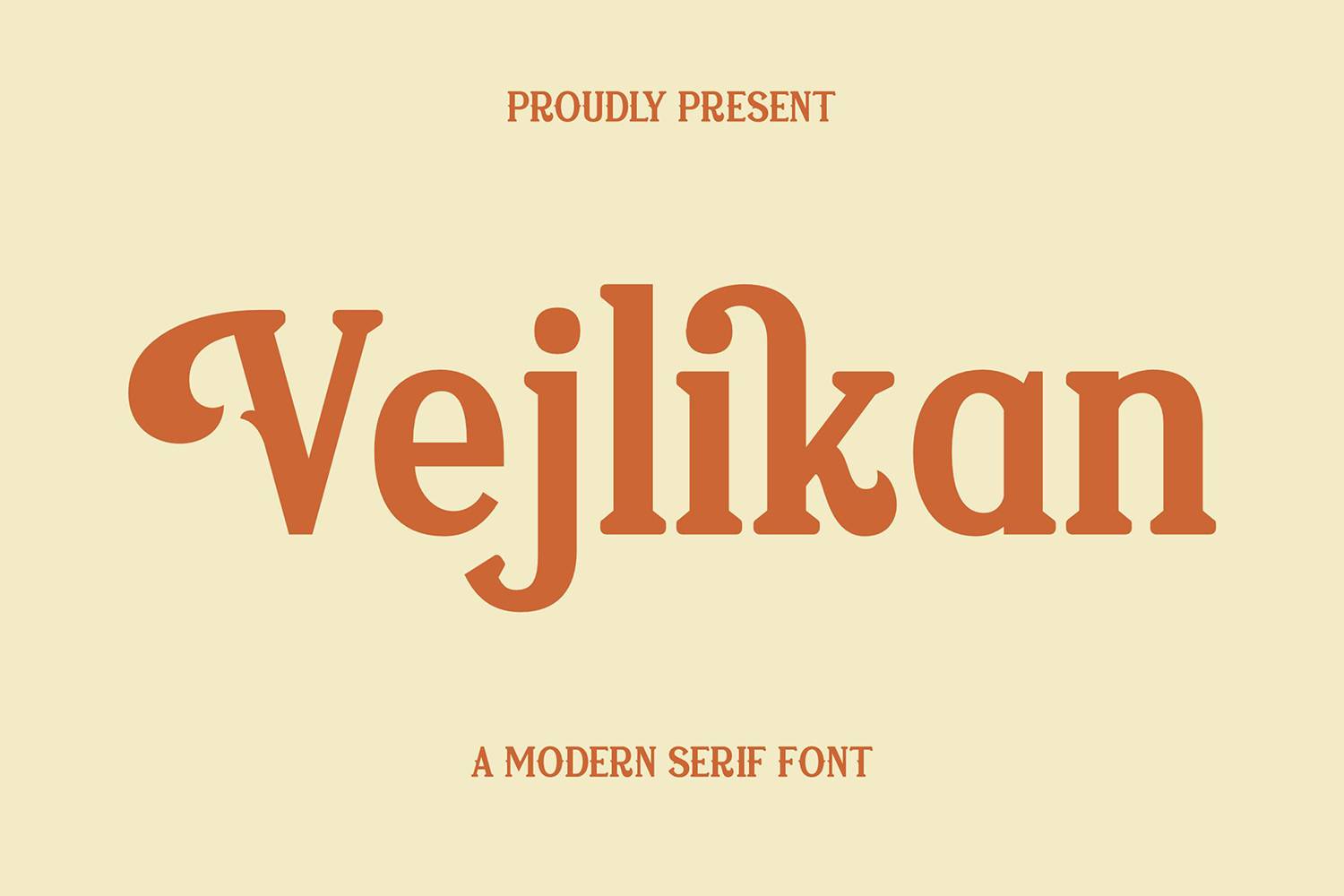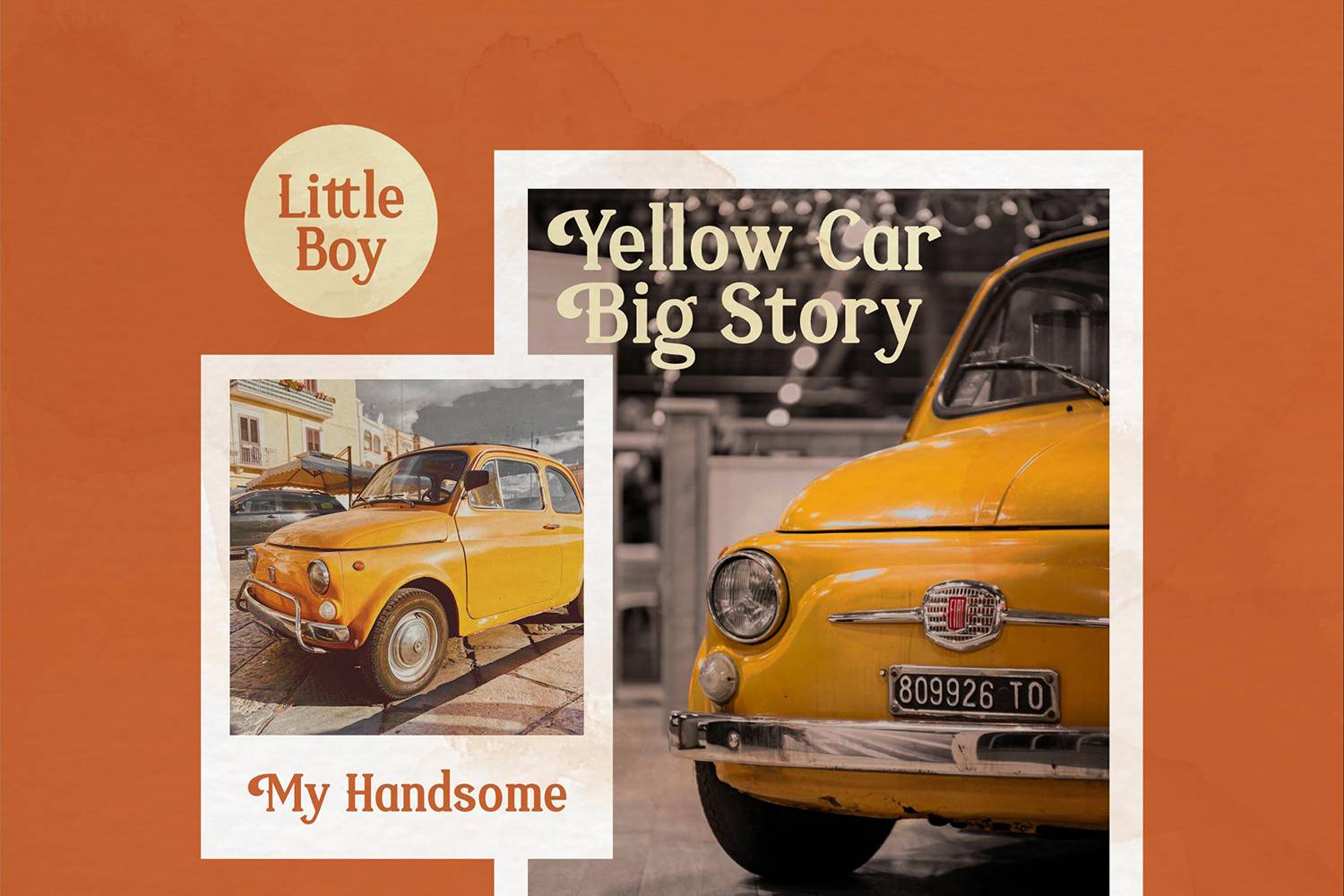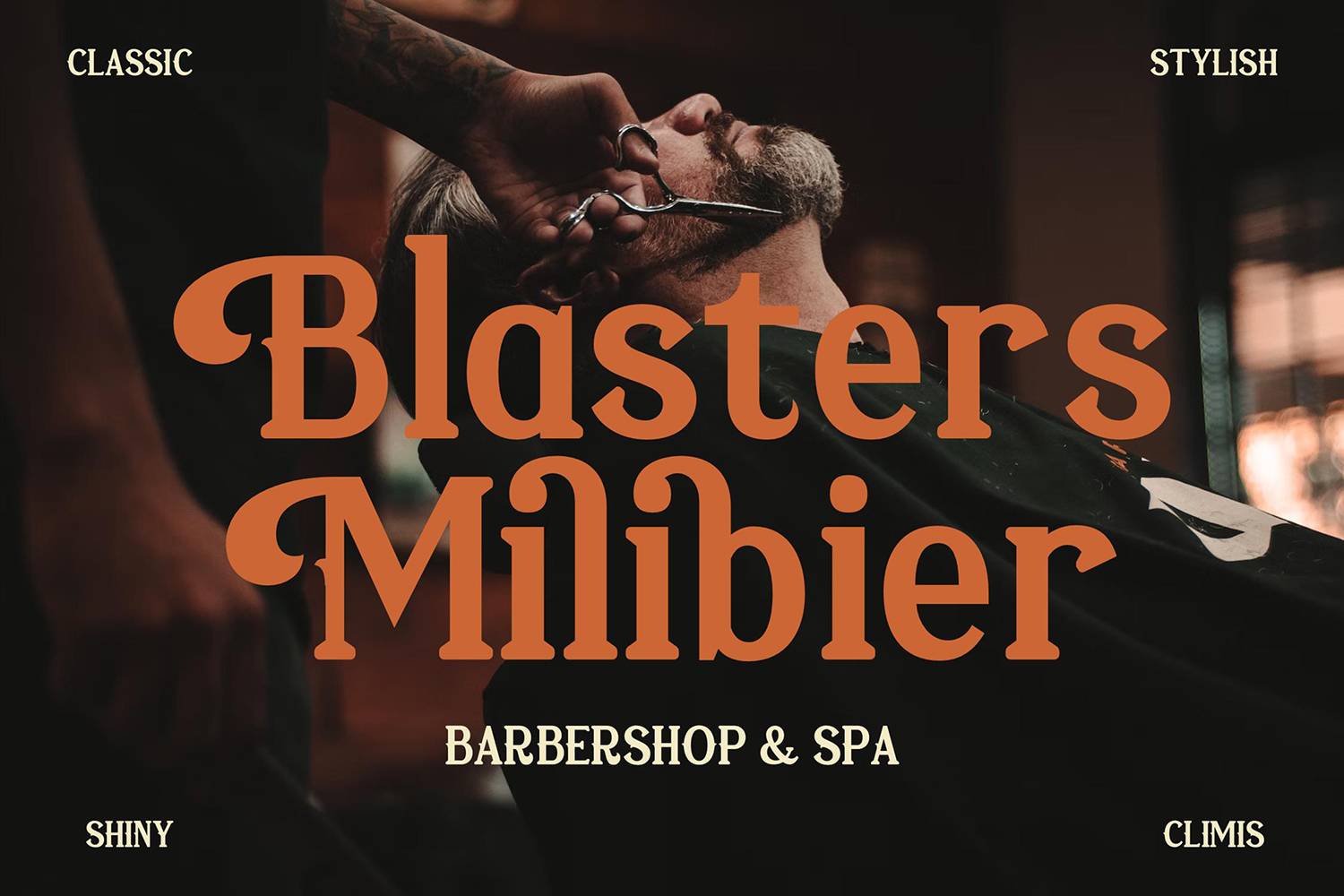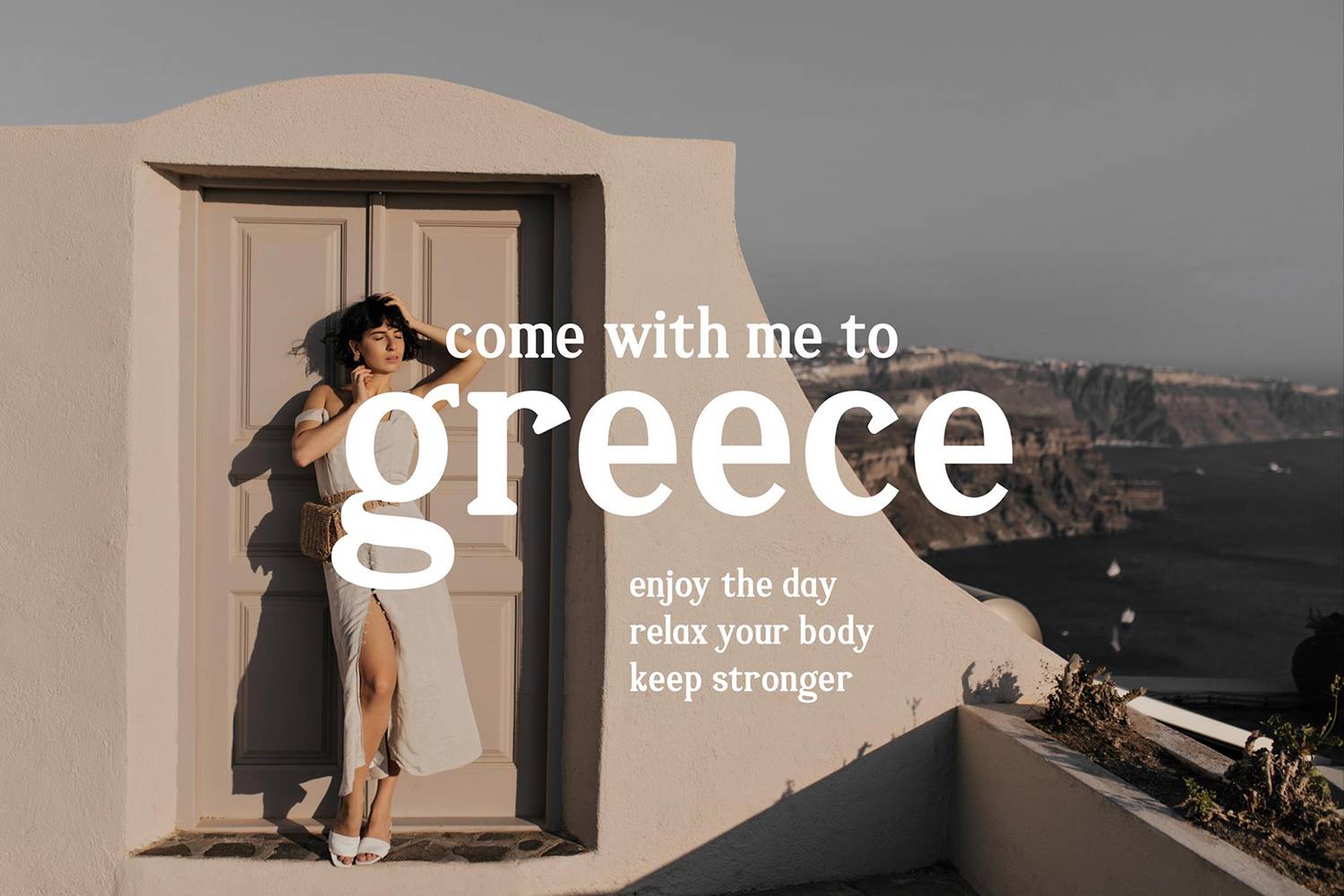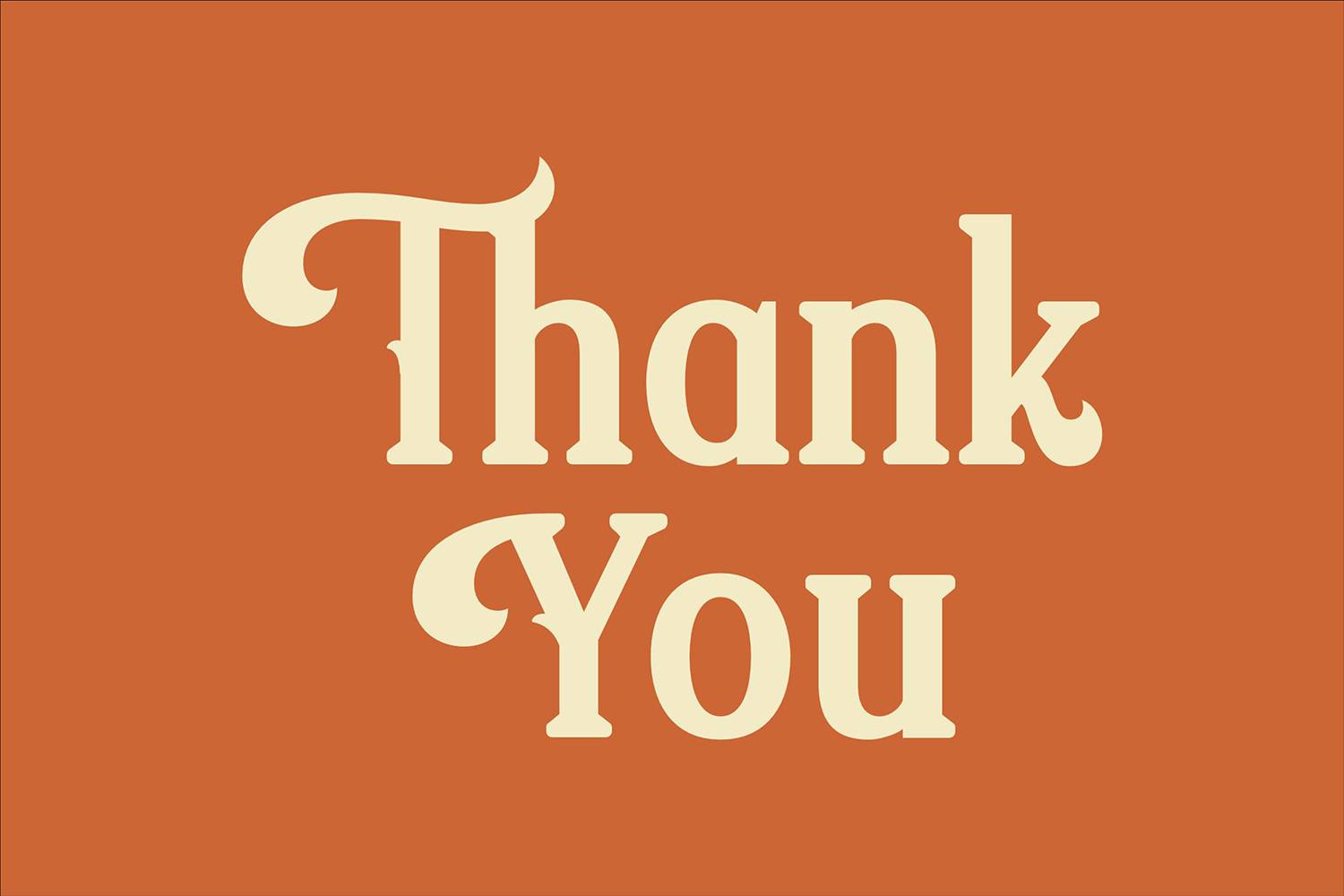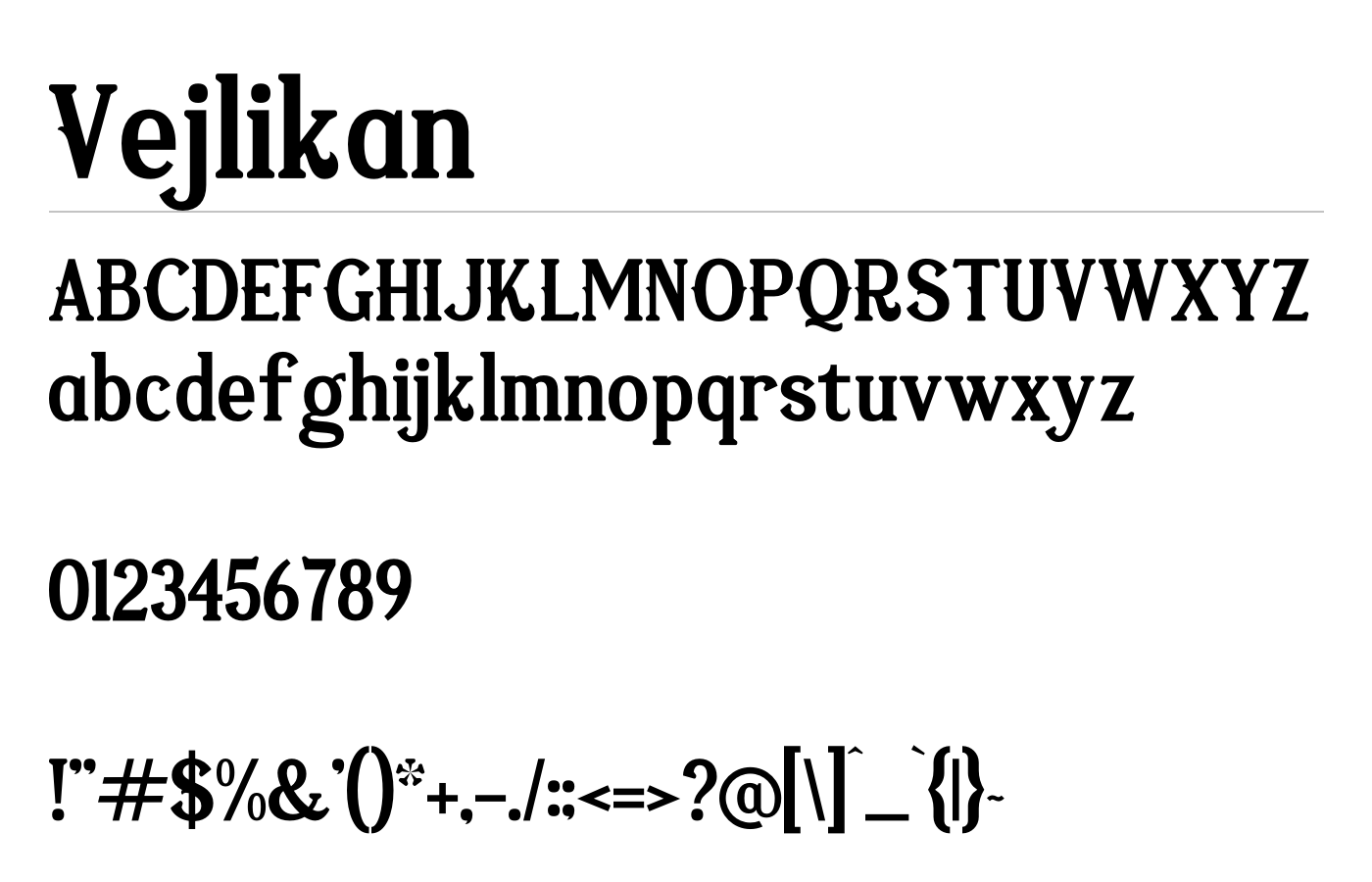
Vejlikan is a distinctive slab serif font with a bold, condensed appearance and moderate contrast in its thick and thin strokes. Its strong serifs, slightly bracketed and sharp-ended, combined with a tall x-height and unique letterforms like the single-story lowercase 'a' and the curled tail on the 'Q,' give it a vintage yet sturdy character. This font works well for headlines, branding, and editorial design where a confident, strong presence with a touch of classic style is desired.
Vejlikan Font
About Vejlikan Font